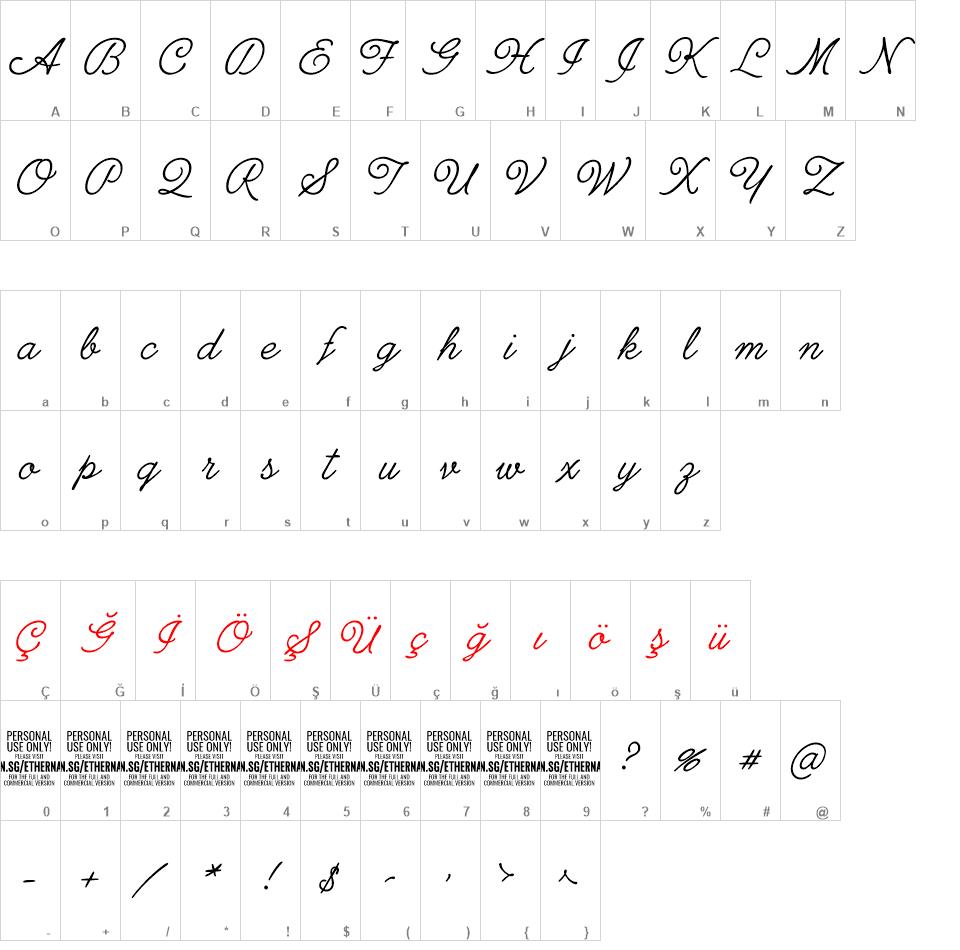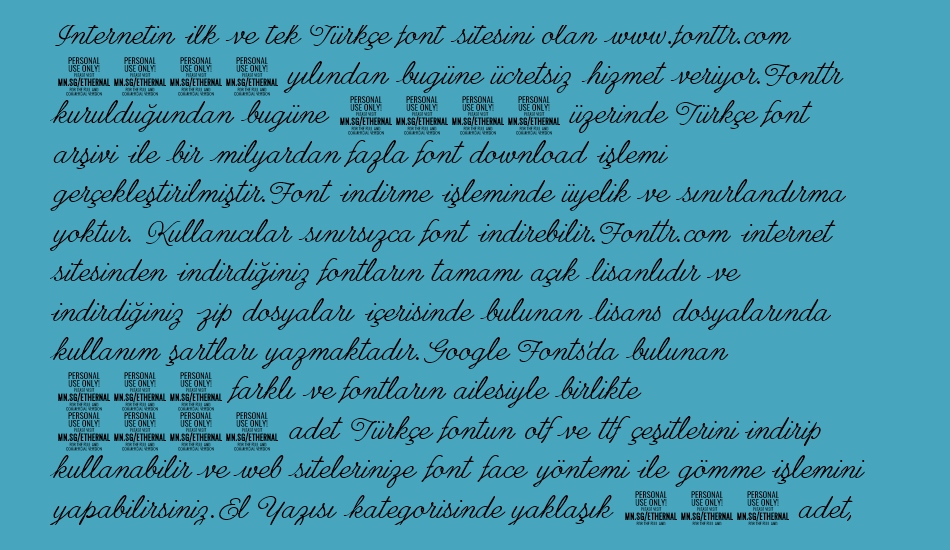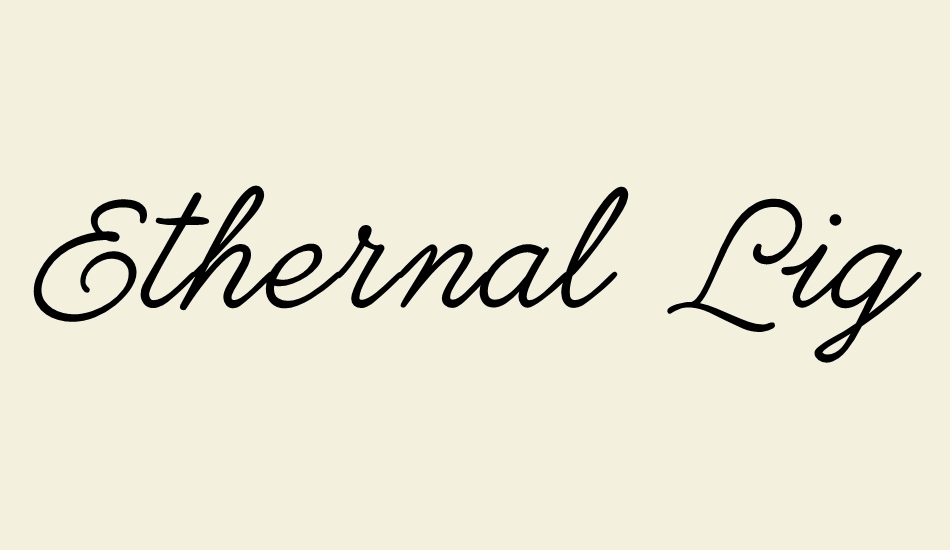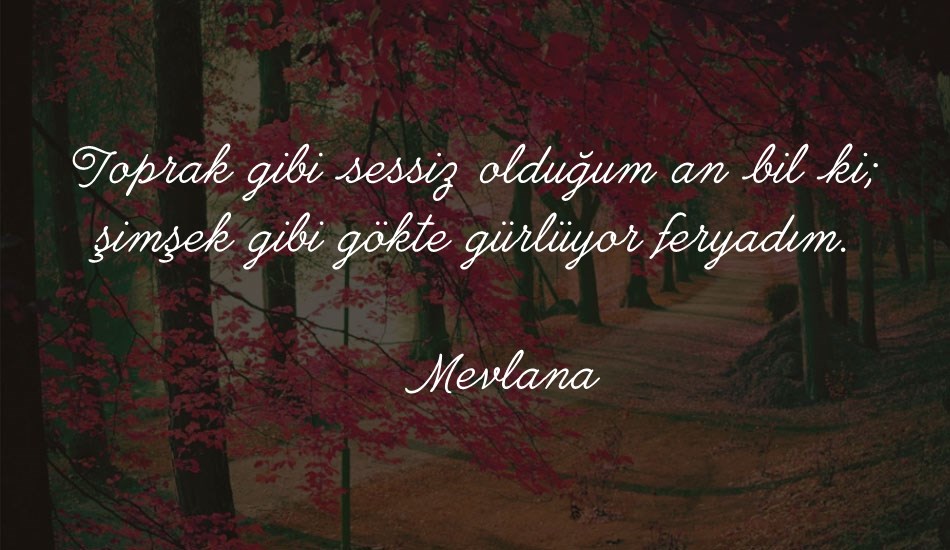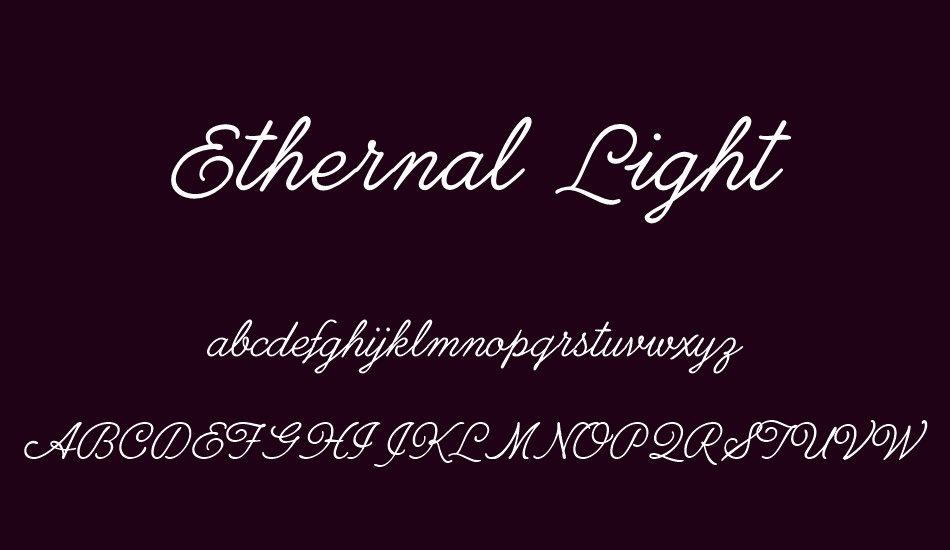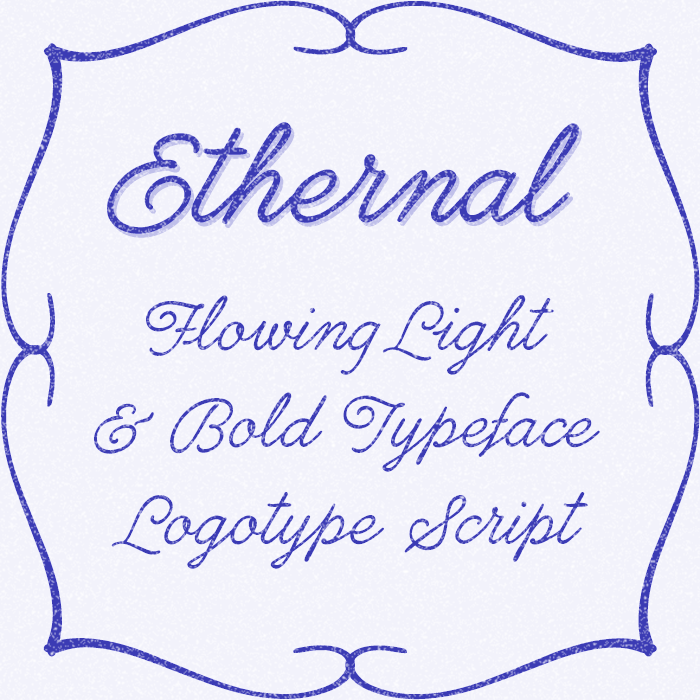
Ethernal font
Ethernal is a two-version script typeface.
It has a beautiful flow, perfected curves and a classic style.
Created by M?ns Greb?ck, this decorative typeface also has a lot of
contextual alternates, as well as stylistic alternates and ligatures,
to make it as flexible as possible.
The fonts supports a very wide range of languages.
Use ( ) [ ] { } after a word for different endings.
Example: Ethernal[